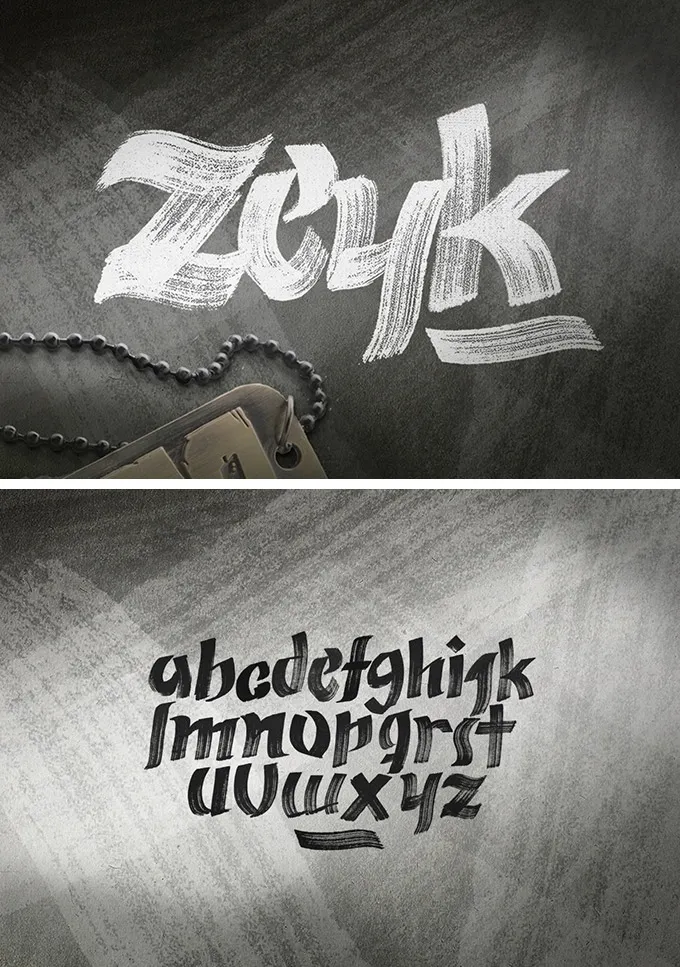
Zeyk Brush Typeface
Make your typography look stunning with this new hand-lettered brush font! Zeyk Brush is a bold and wild typeface designed to catch the eye. Use it in multiple design projects to stand out of the crowd.
Take a closer look and you'll see every brush line in the brush's texture. These details provide an extra realistic look for the typeface, making it look very convincing. This alphabetical font that comes in TTF format and has to become a great addition to your printouts, commercials, headlines, collage implements, and other countless variations!